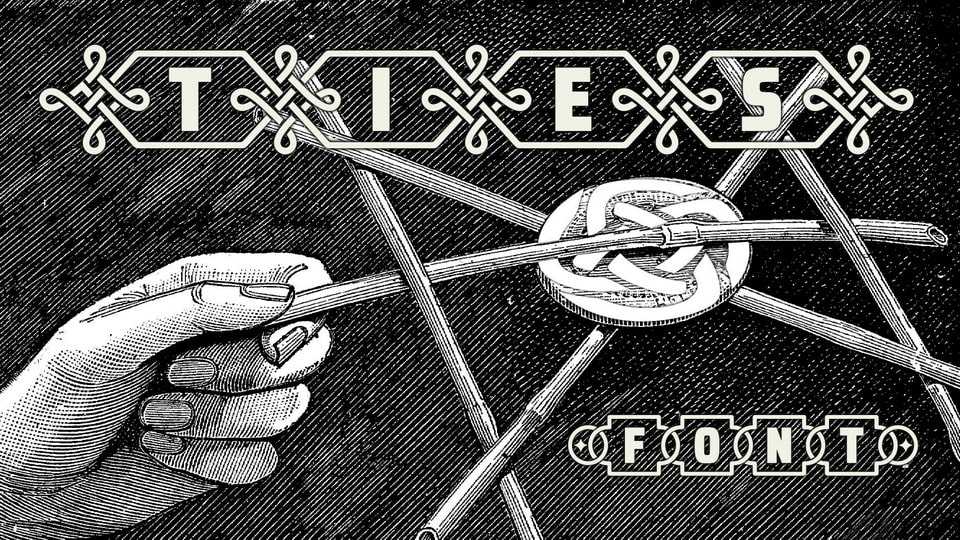
Download TIES font, a display historic banner-style typeface with a tribal style. The result is an intertwined and decorative alphabet that combines strength and elegance.